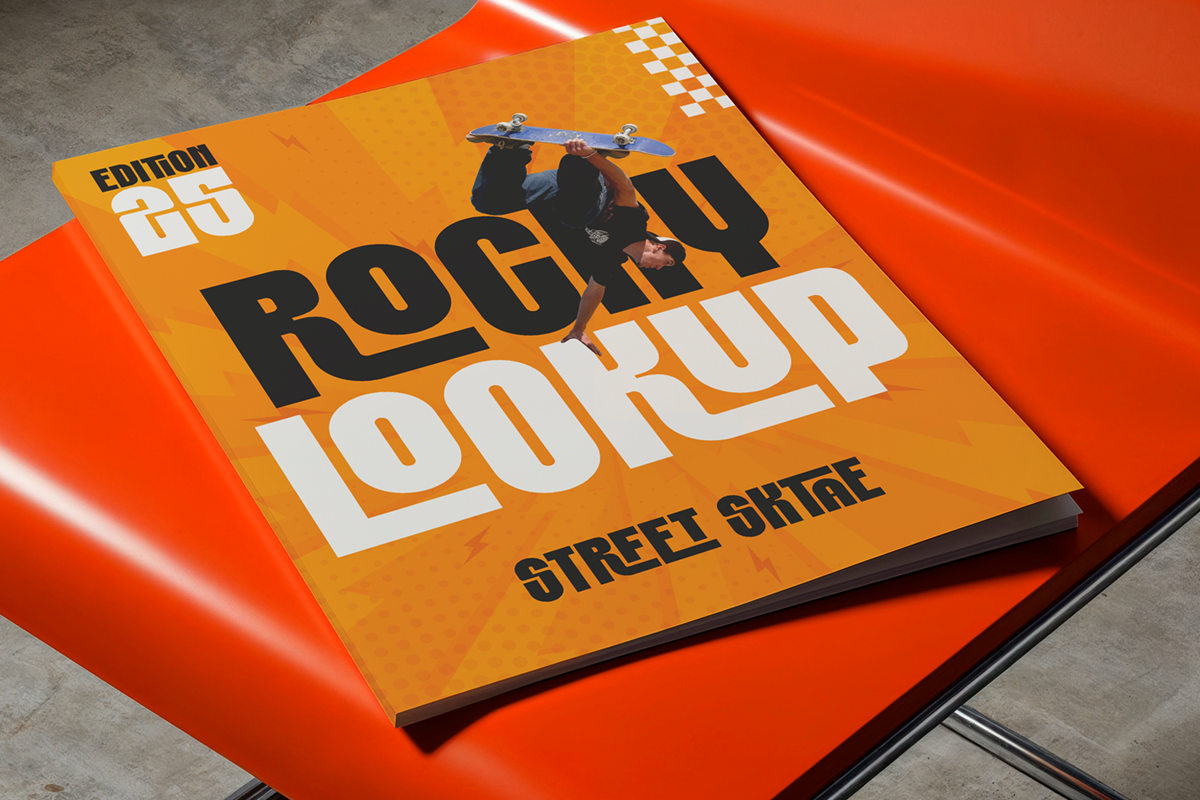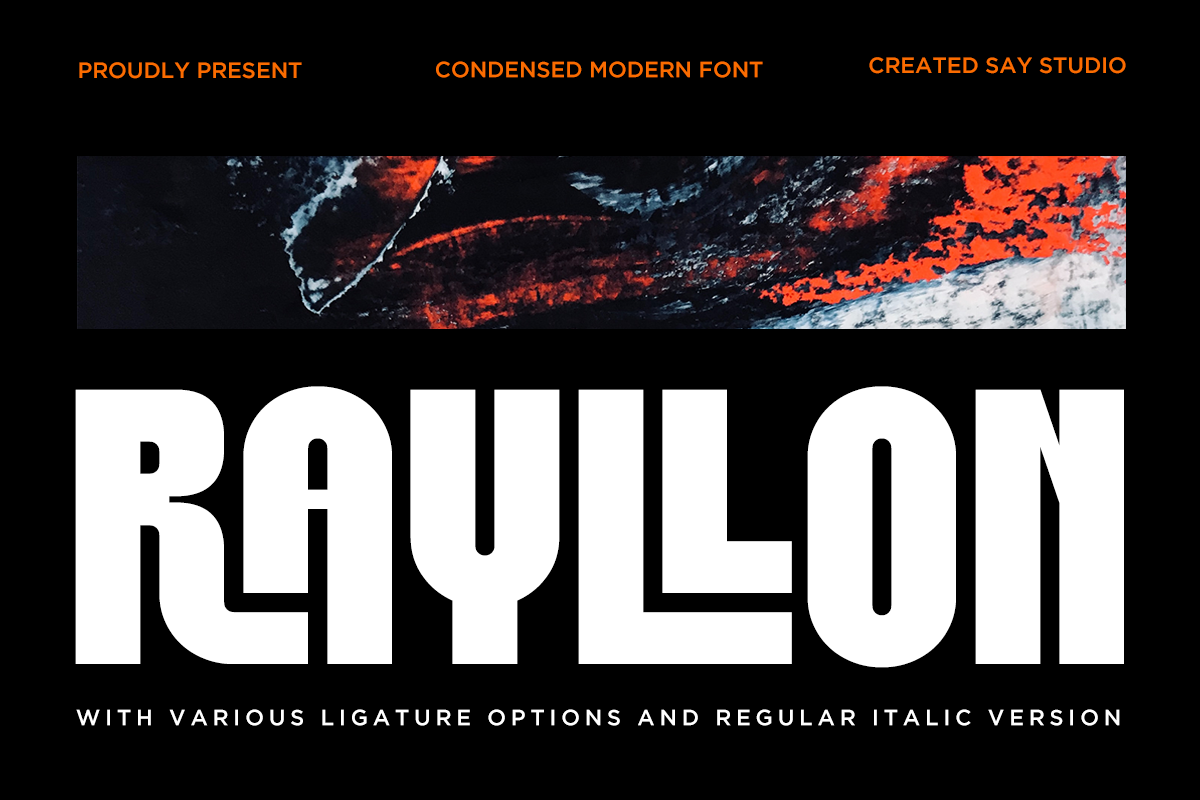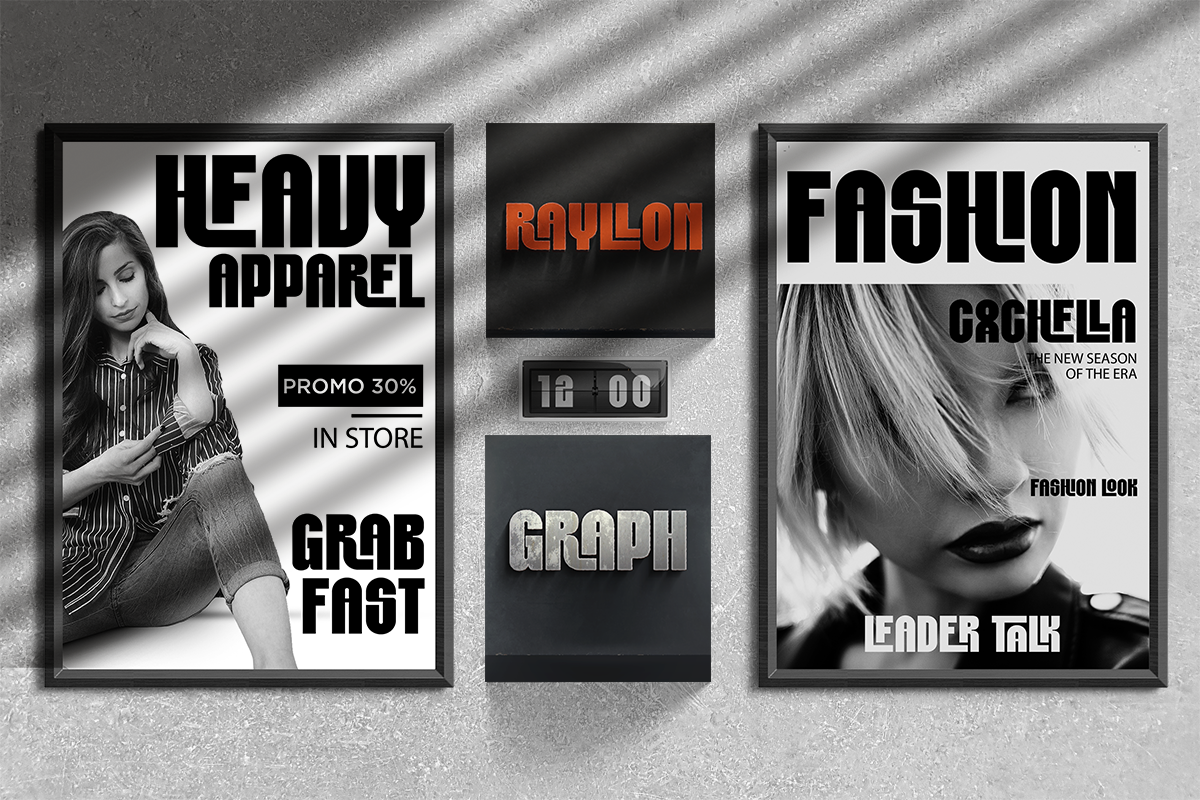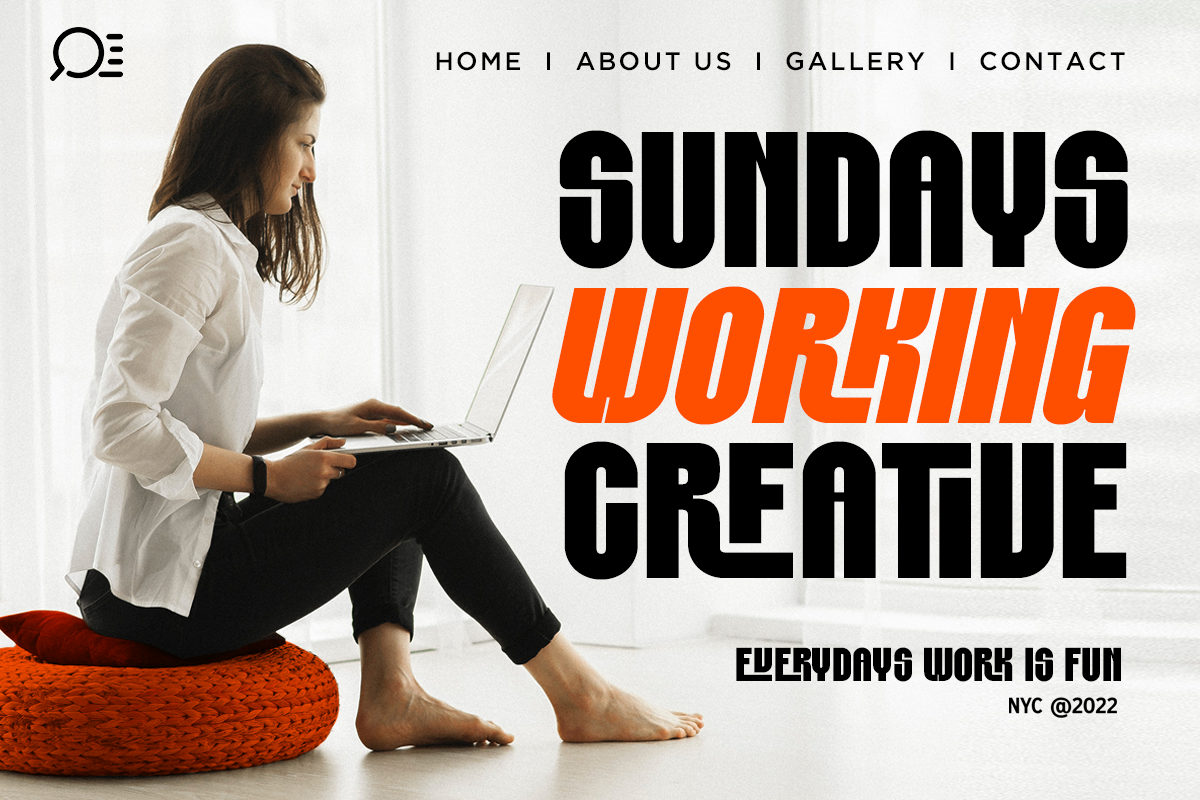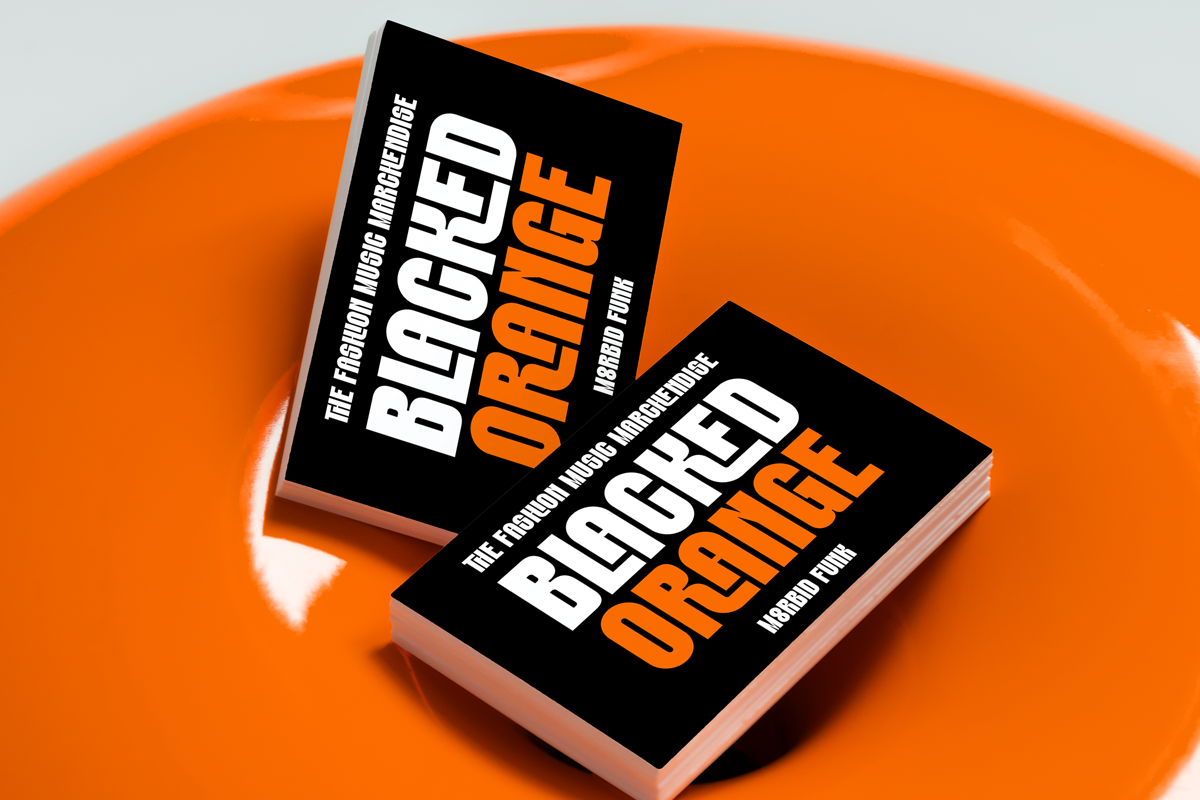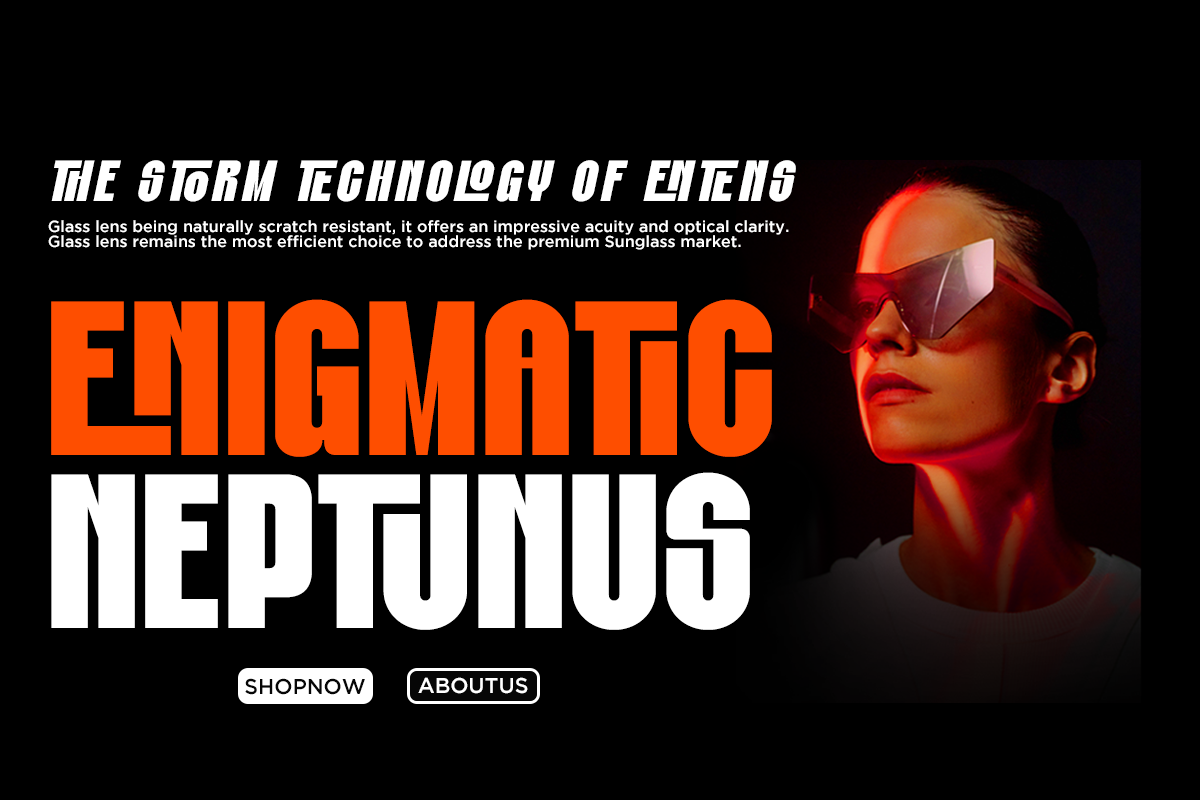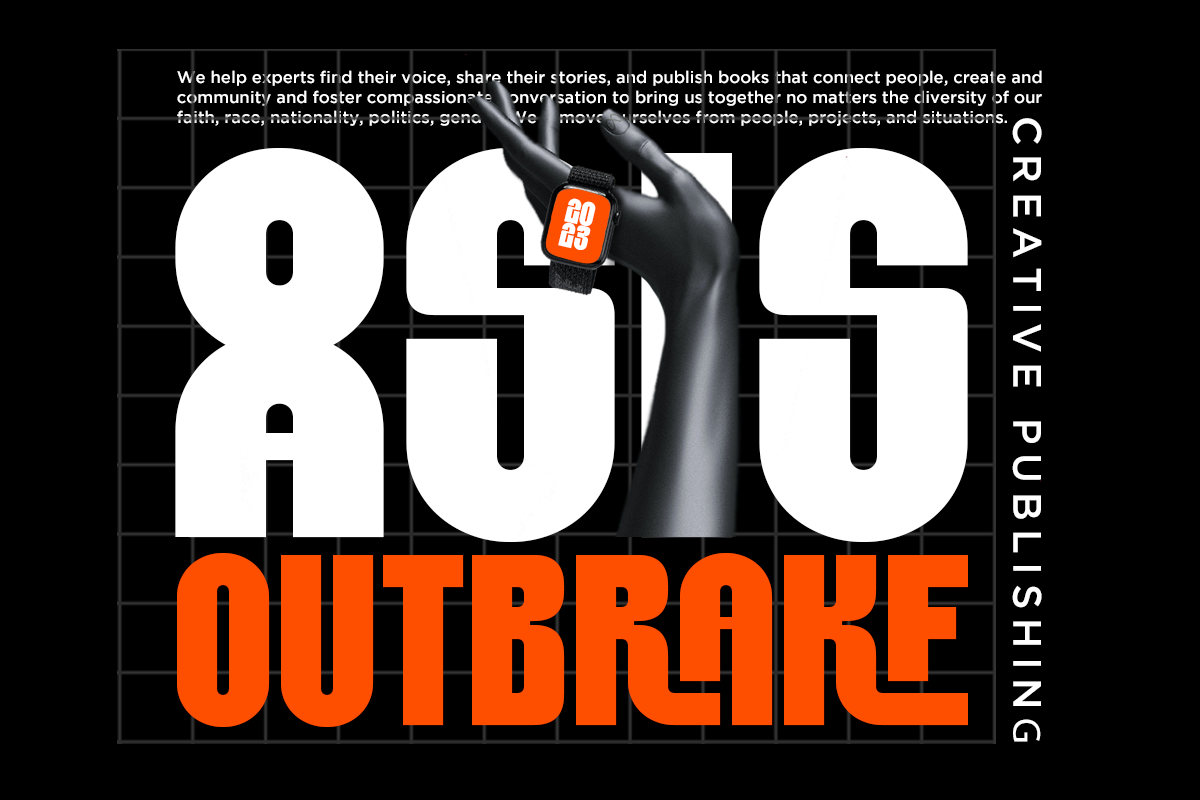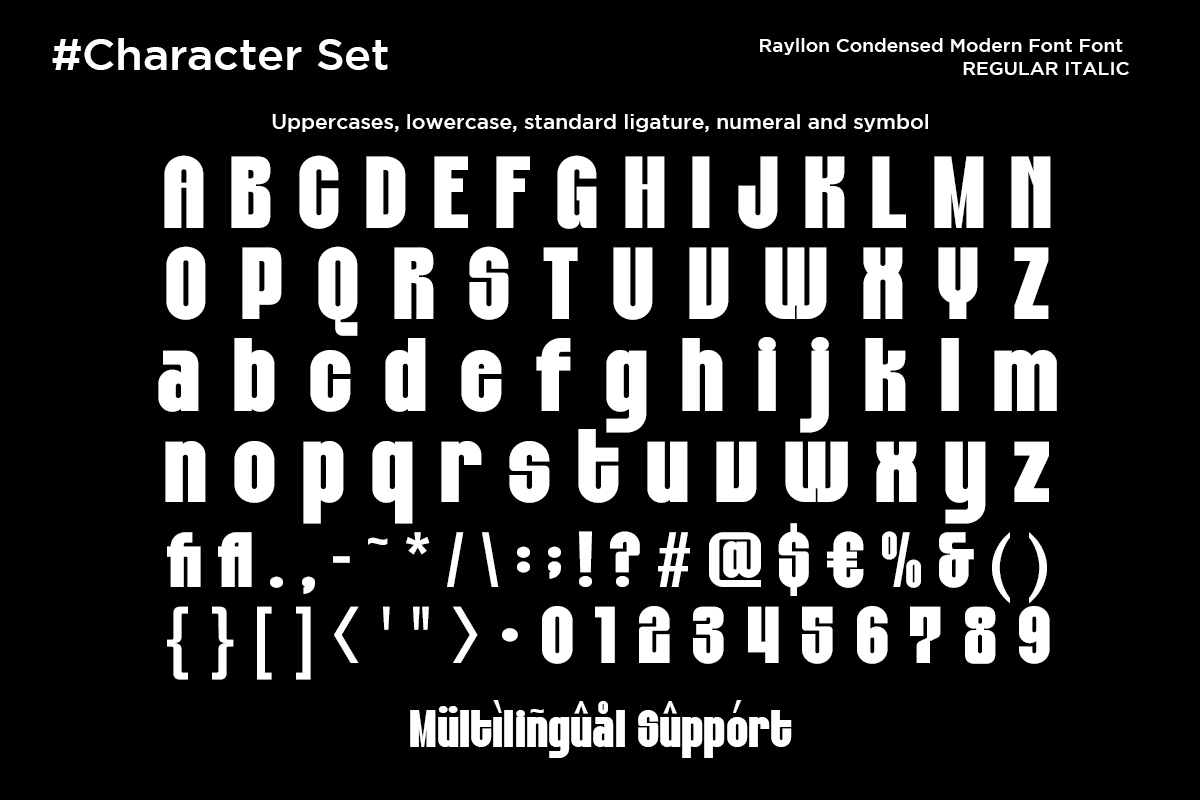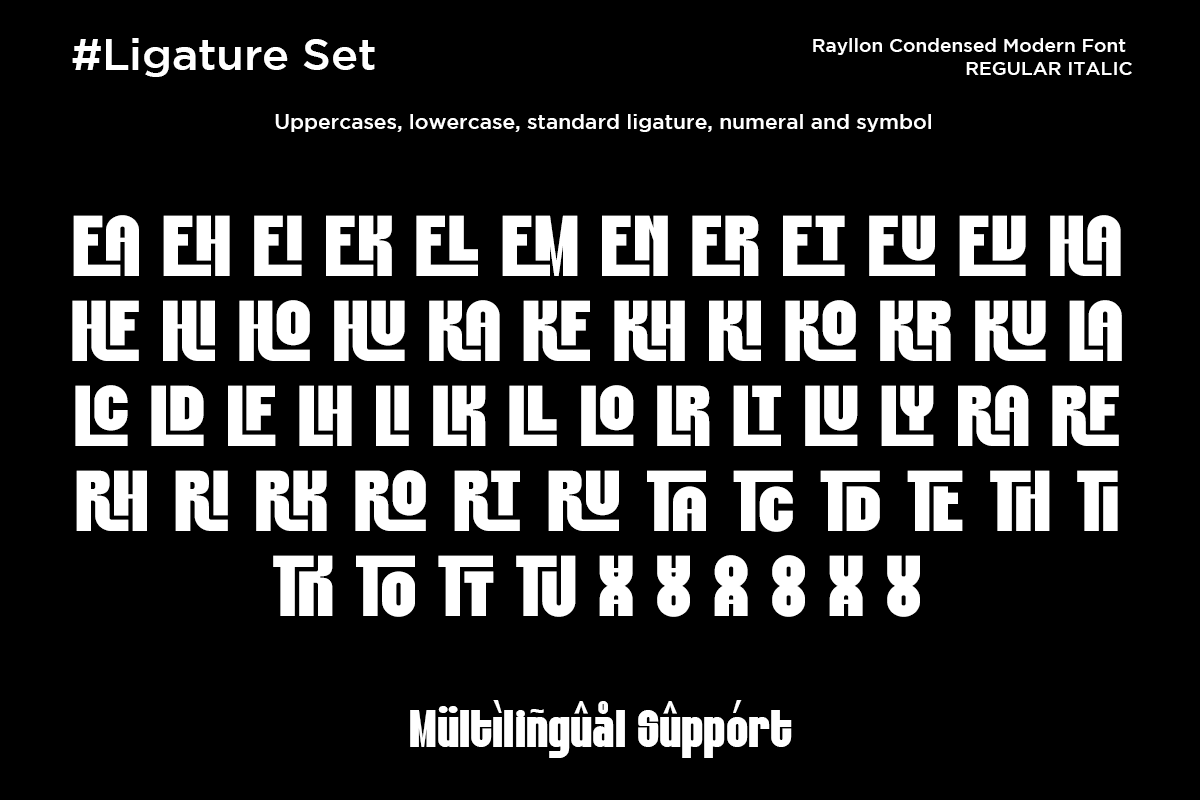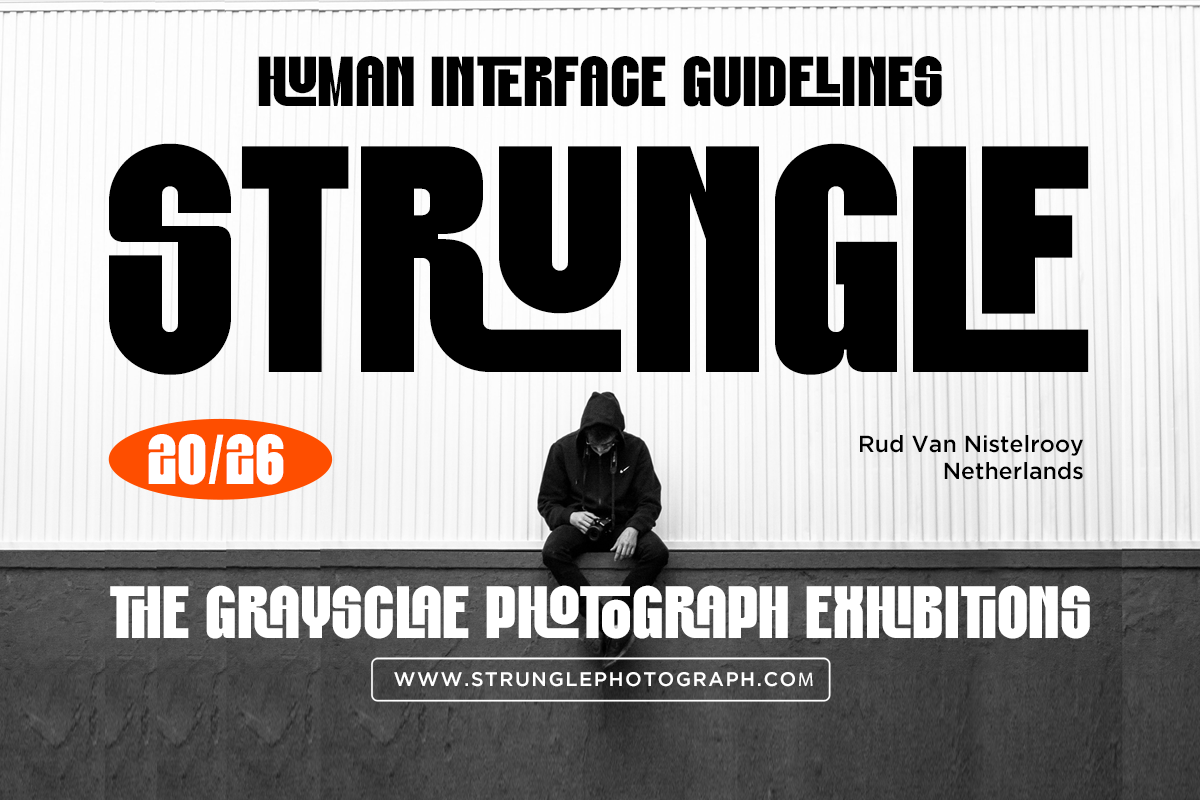
Rayllon - Condensed Modern Font
Rayllon is a modern condensed sans serif typeface designed to make a bold first impression. Inspired by contemporary architecture and clean urban visuals, Rayllon combines strong structure with refined simplicity, creating a typeface that feels confident, modern, and timeless at once. Its condensed proportions allow designers to maximize space while maintaining excellent readability and visual impact.
Built for versatility, Rayllon works seamlessly across a wide range of creative projects. From striking logos and powerful headlines to editorial layouts, posters, packaging, and digital content, this font delivers a strong voice without overpowering the design. The bold character shapes bring clarity and authority, making Raylon especially suitable for branding and modern visual identities.
Rayllon comes with carefully crafted uppercase and lowercase letters, a regular and italic version, and various ligature options that add subtle personality and flexibility to your typography. Clean kerning, balanced spacing, and solid punctuation ensure smooth performance for both print and digital use.
Whether you’re building a brand from the ground up or refining an existing identity, Raylon is designed to support creative professionals who value clarity, strength, and modern aesthetics. It’s a reliable choice for designers who want their message to stand tall, sharp, and unmistakably contemporary.